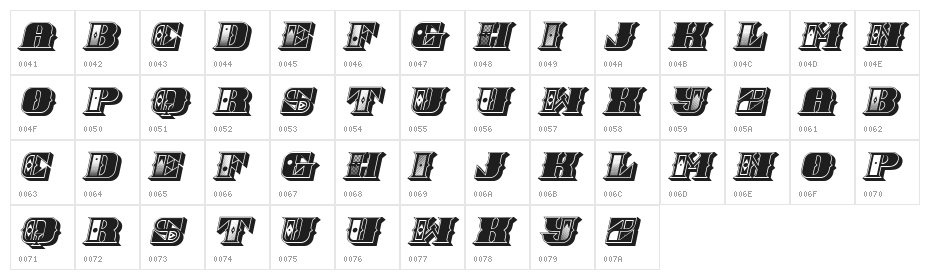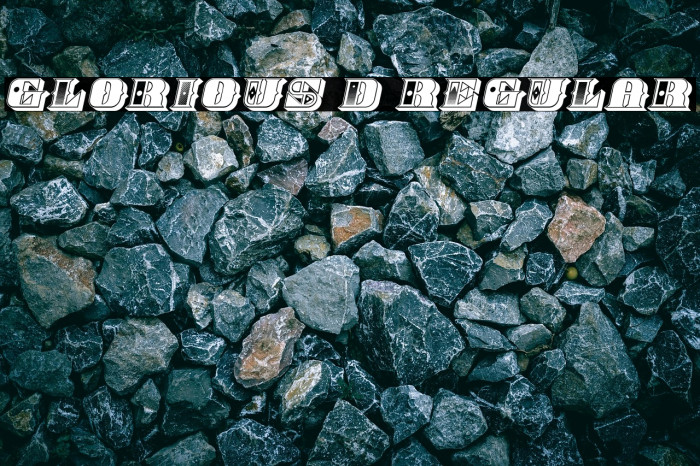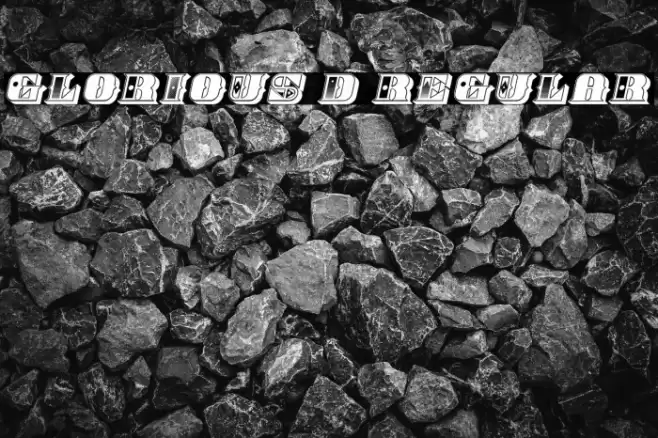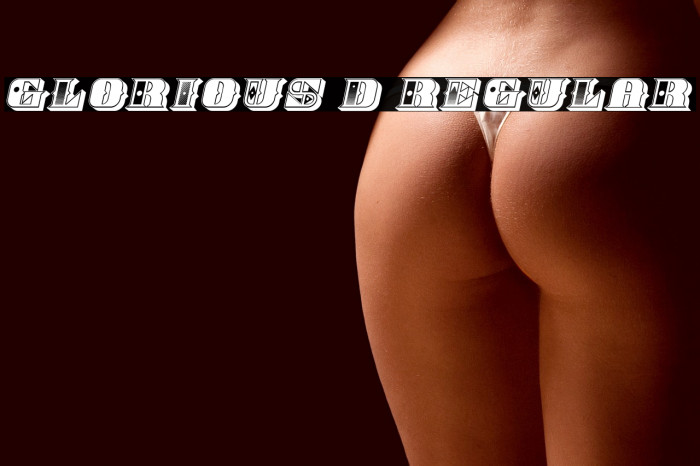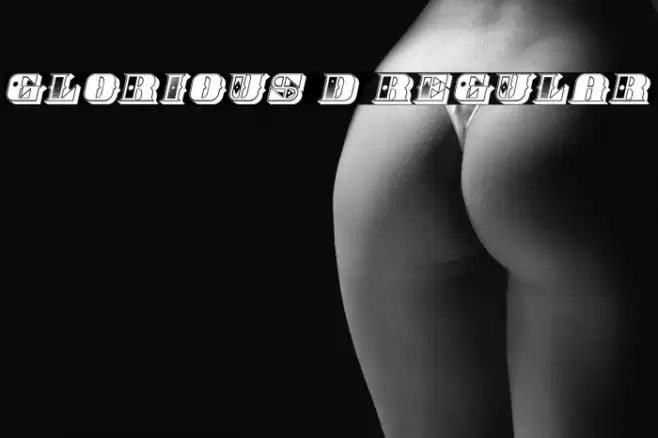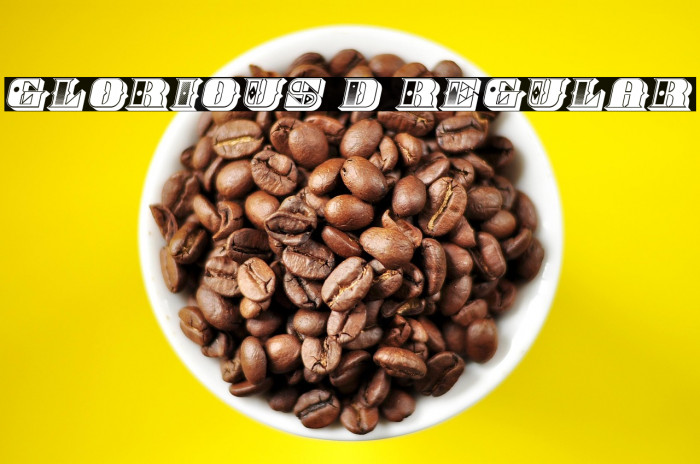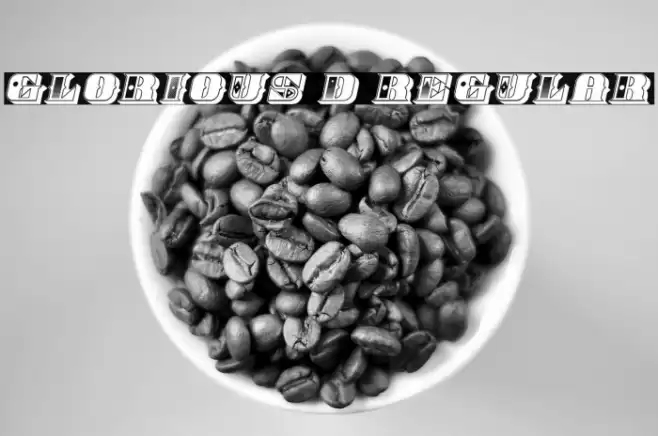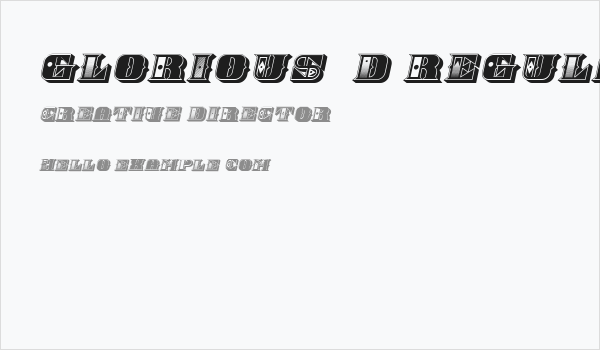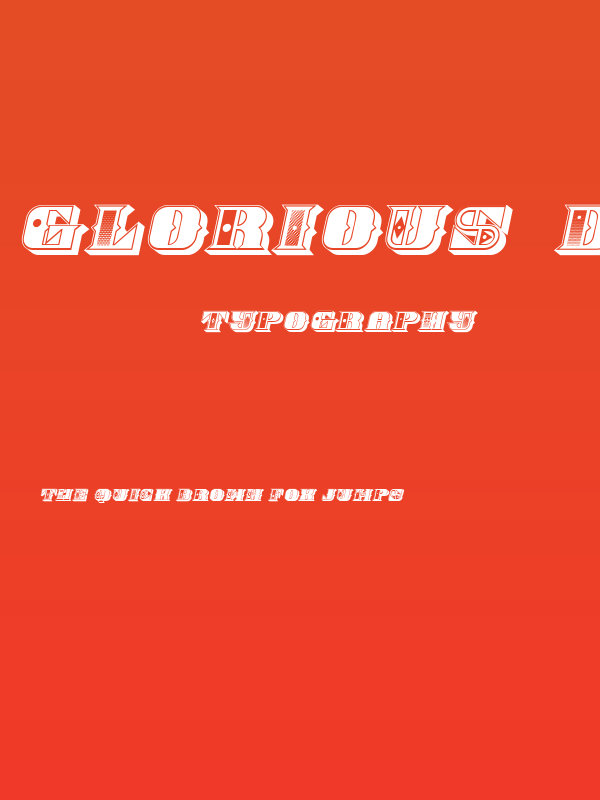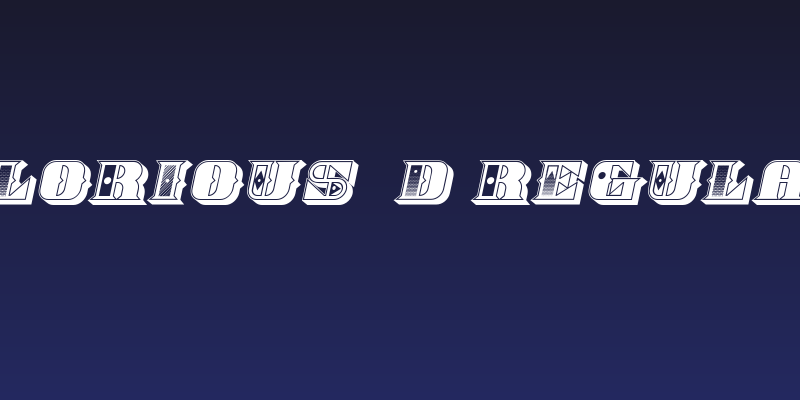
Glorious 3D Regular Font
Glorious 3D Regular Description
This font features a bold, three-dimensional appearance with a distinct shadow effect that gives it a striking, eye-catching look. The characters are designed with a strong, solid structure, and the shadowing adds depth and a sense of movement. The font's style is reminiscent of vintage signage or retro posters, making it ideal for projects that require a touch of nostalgia or a bold statement. Each letter is crafted with precision, ensuring clarity and readability despite the complex design. The font's unique style makes it suitable for creative and decorative applications.
| Proposed Projects | Ideal for posters, logos, headlines, and retro-themed designs. |